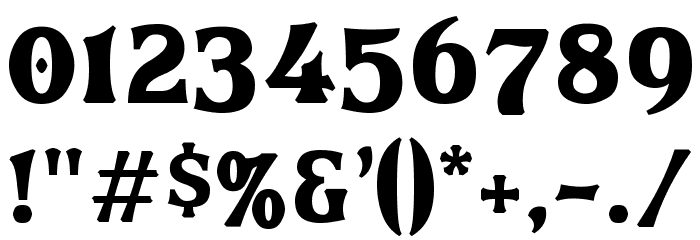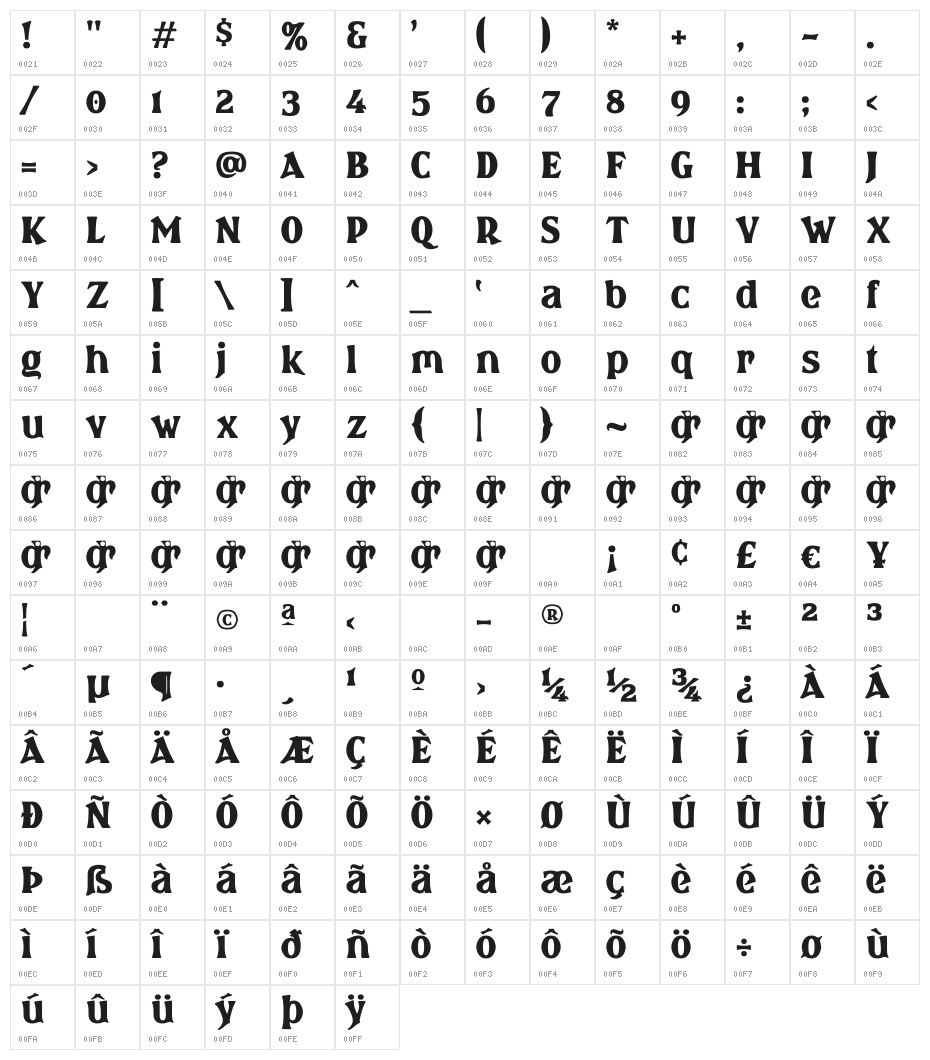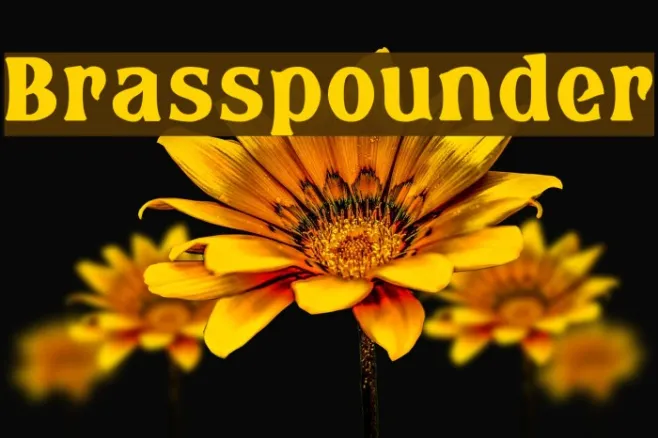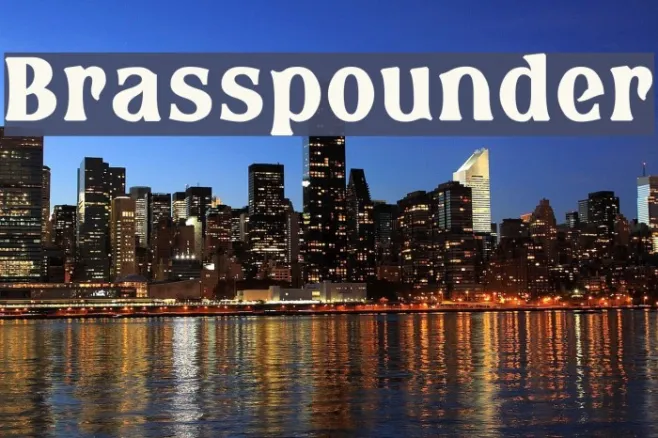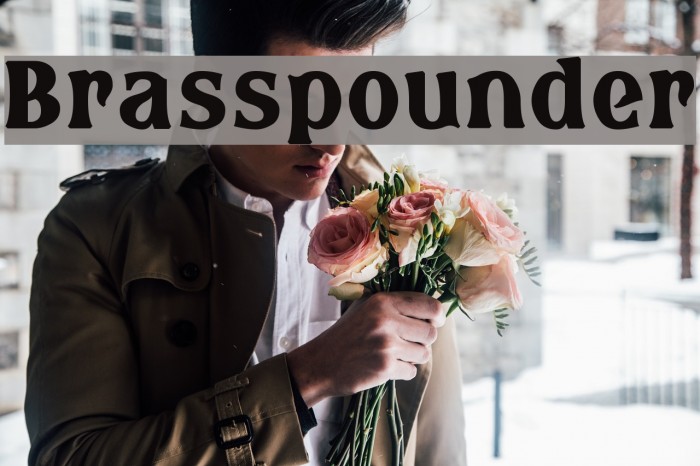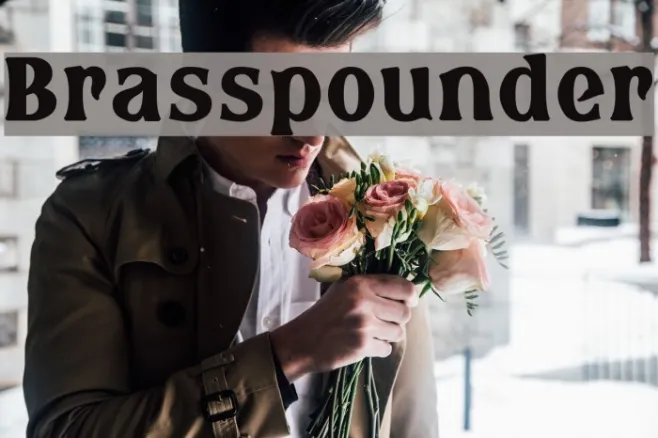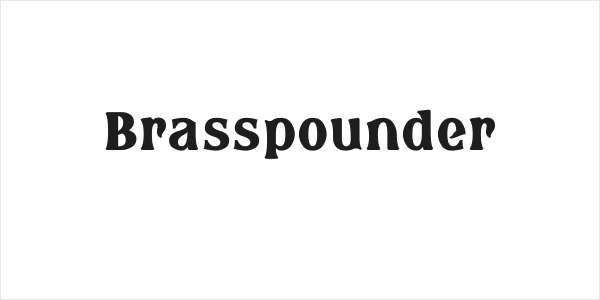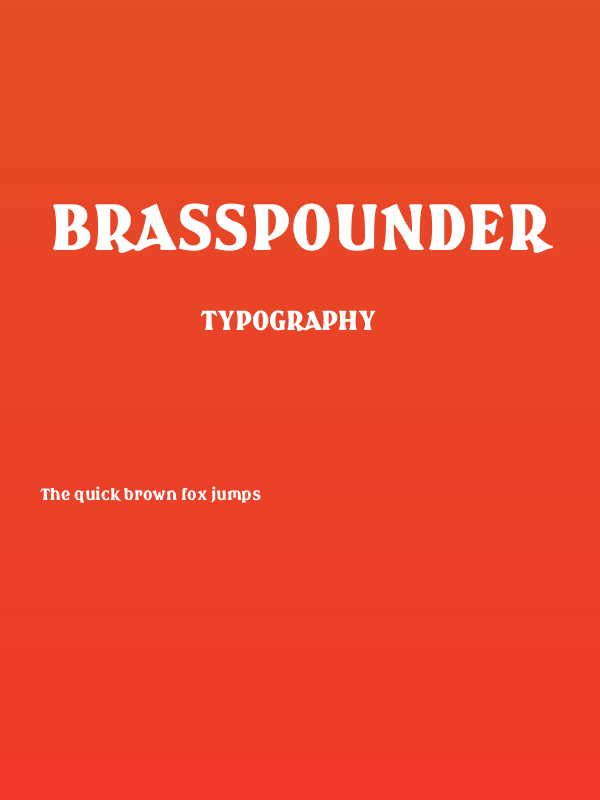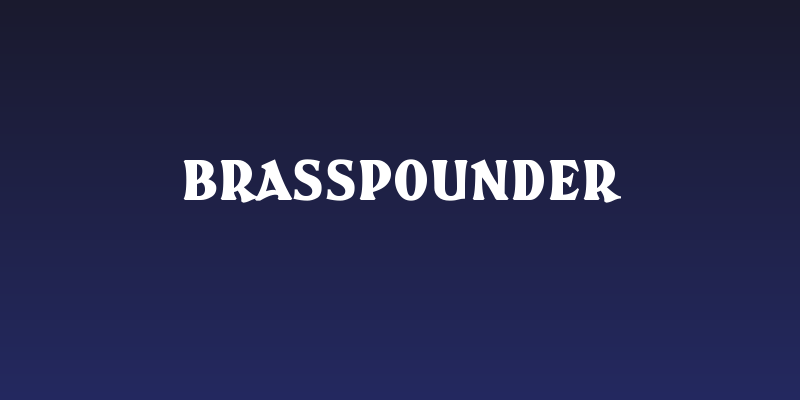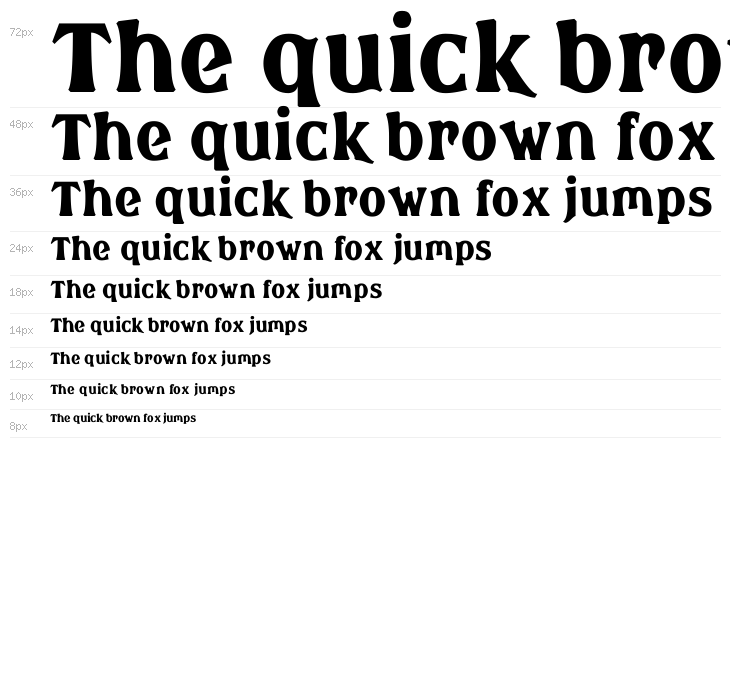
Brasspounder Font
Brasspounder Description
This font features a bold and dynamic style with a strong presence. The characters are designed with a slight slant, giving them a sense of movement and energy. The strokes are thick and consistent, providing a robust and impactful appearance. The serifs are pronounced, adding a touch of classic elegance while maintaining a modern edge. The overall design is both decorative and functional, making it suitable for a variety of creative applications. The numerals and special characters are crafted with the same attention to detail, ensuring a cohesive look across all glyphs.
| Proposed Projects | Ideal for branding, posters, headlines, and any project requiring a strong visual impact. |